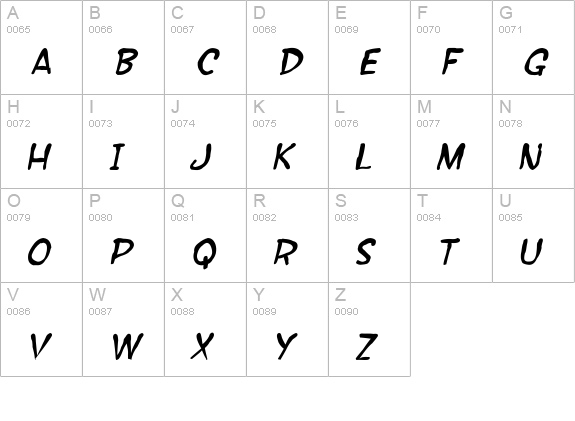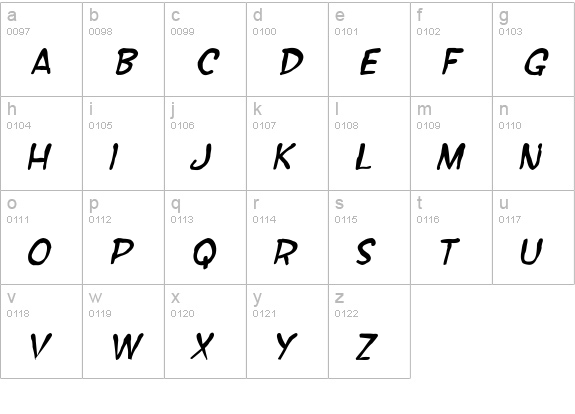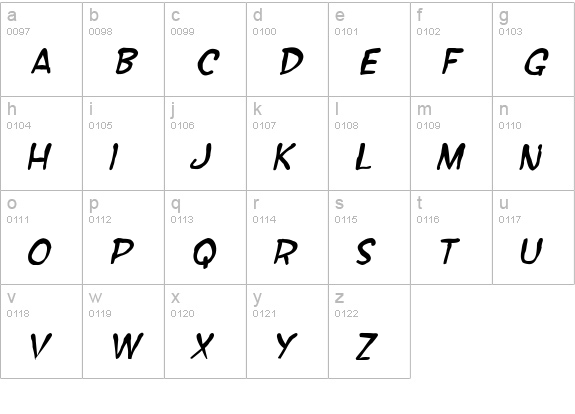
SF Wonder Comic Blotch Italic Font Details
SF Wonder Comic Blotch Italic is a distinctive, italic variant in the SF typeface family \xE2\x80\x94 well suited to design and typography projects.
Introducing SF Wonder Comic Blotch Italic font, an extraordinary typeface that brings a playful and whimsical touch to any design project. With its unique and captivating style, this font is sure to grab attention and add a sense of fun and excitement to your creative endeavors. SF Wonder Comic Blotch Italic font features a hand-drawn appearance, with uneven lines and irregular shapes that give it a distinctive and artistic feel. The italicized design adds a sense of movement and dynamism, making it perfect for conveying energy and enthusiasm in your designs. Whether you're working on a comic book, children's book, poster, or any other creative project, SF Wonder Comic Blotch Italic font will surely make a lasting impression. Its quirky and playful nature makes it an ideal choice for projects aimed at capturing the imagination of both young and old alike. One of the best things about SF Wonder Comic Blotch Italic font is that it is available for free. Yes, you heard it right! This amazing font can be freely downloaded at FontsMarket.com, allowing you to add a touch of creativity and joy to your designs without breaking the bank. So why wait? Embrace the fun and excitement that SF Wonder Comic Blotch Italic font brings and let your designs stand out from the crowd. Download it now for free at FontsMarket.com and let your creativity soar to new heights.